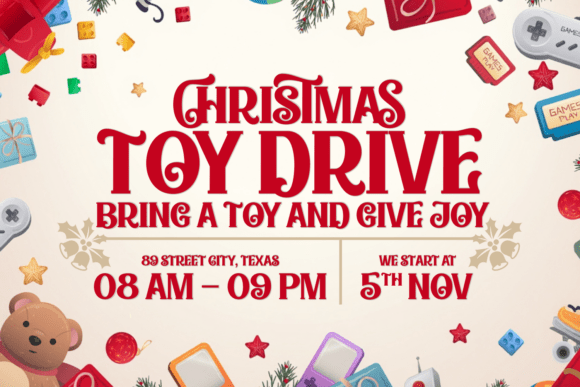
Desire Christmas Font
The “Desire Christmas” font combines traditional charm and modern craftsmanship. Its flowing swashes, bold serifs, and ornate curves evoke feelings of celebration, joy, and classic holiday spirit. Perfect for designers seeking a luxurious and cheerful display typeface that instantly conveys the warmth of the Christmas season.